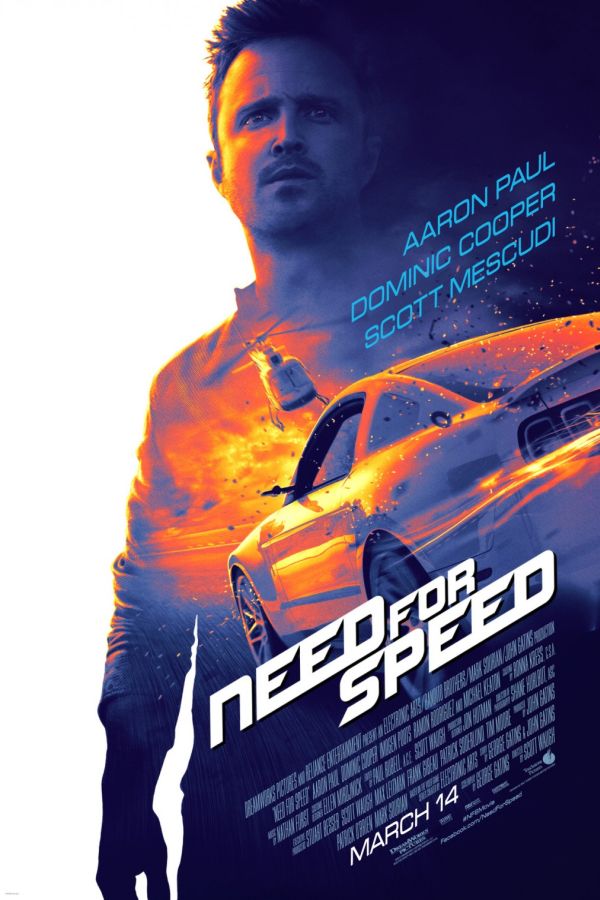
Need For Speed Font
The font used for the title Need For Speed in the poster is most likely a techno font NFS by Jlty. It comes in uppercase letters and numerals. You can download it for free in the Fonts Used Section.